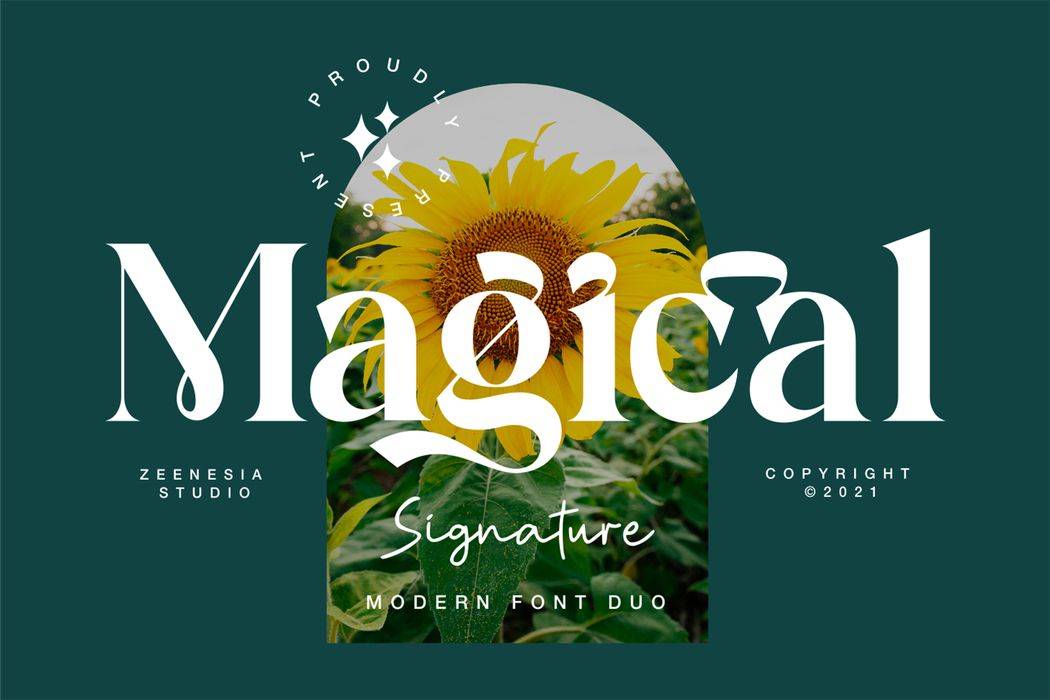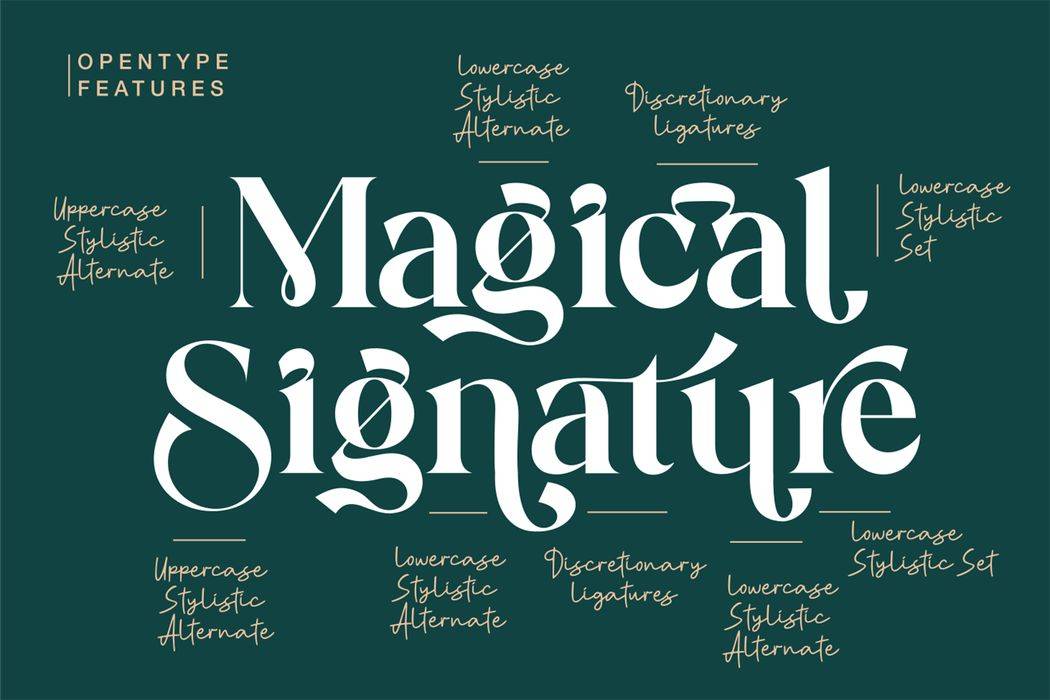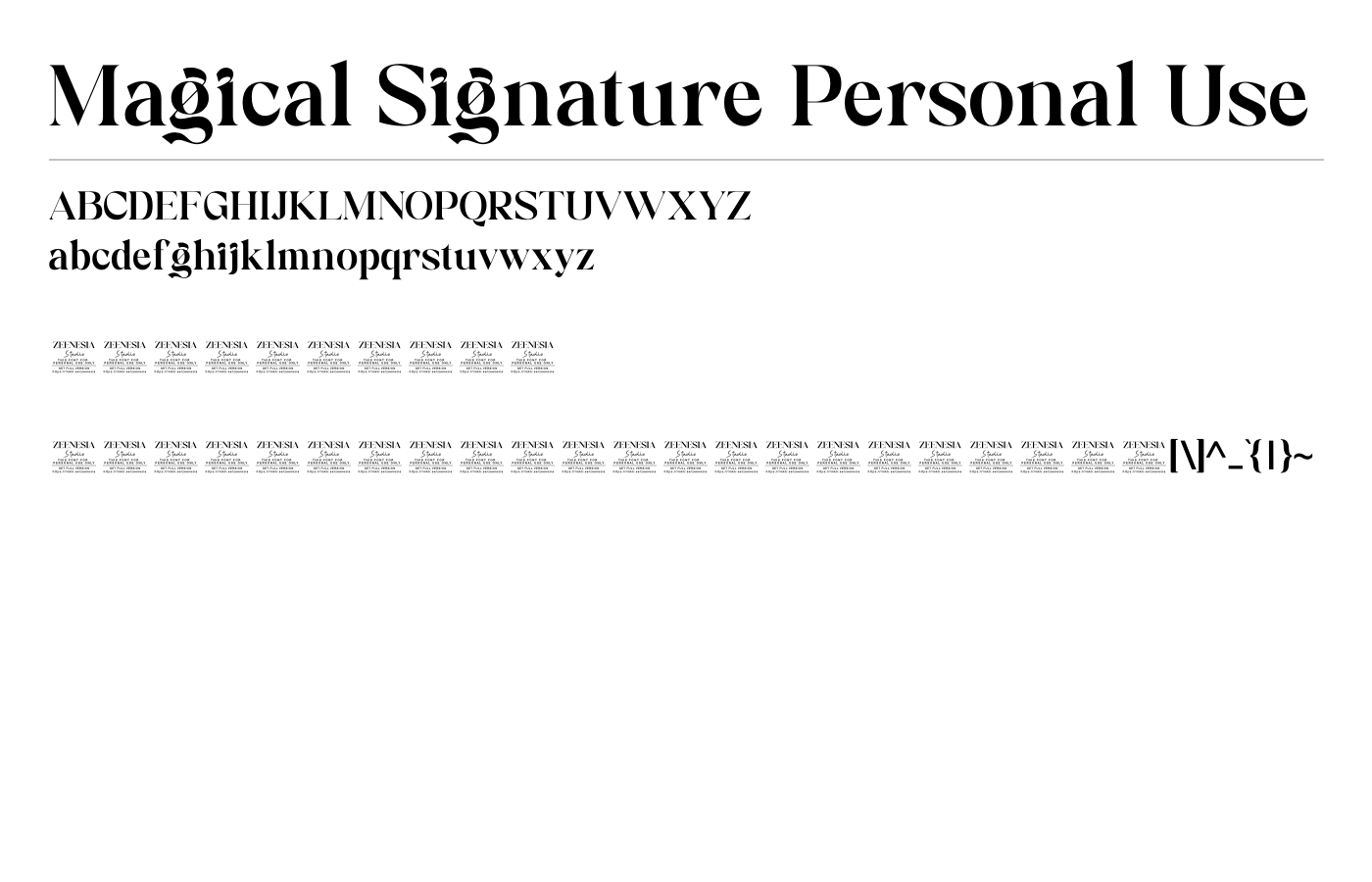
Magical Signature Font is a stylish serif typeface with strong contrast between thick and thin strokes, featuring elegant, sharp serifs and distinctive letterforms that give it a modern yet classic look. Its unique character shapes and refined details make it ideal for luxury branding, editorial design, and sophisticated logos, where a touch of elegance and personality is desired. This font works best in headlines or display uses, adding a bold and memorable flair without sacrificing readability.
Magical Signature Font
About Magical Signature Font